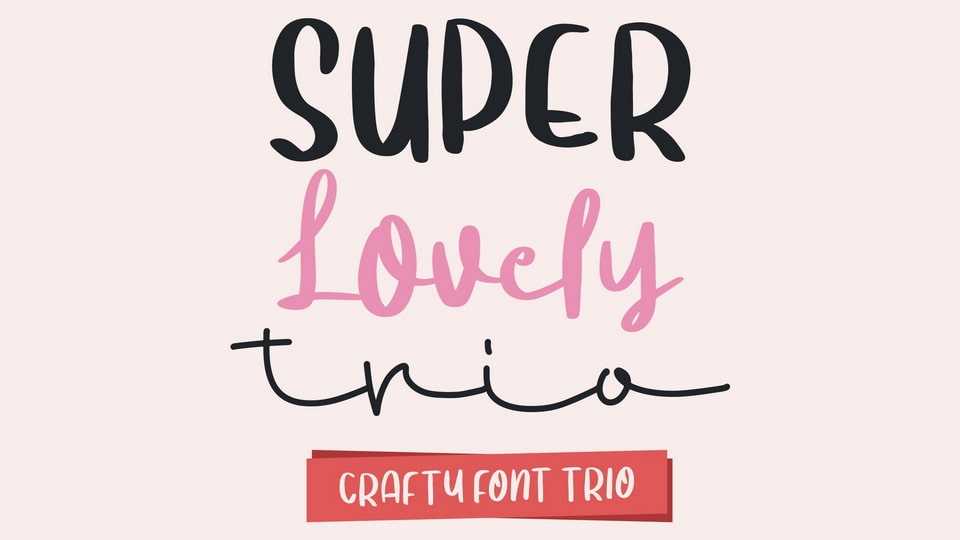
Download Super Lovely Trio font, a cute and relaxed trio styled handwritten font. Its natural and unique style makes it suitable for a variety of design ideas.